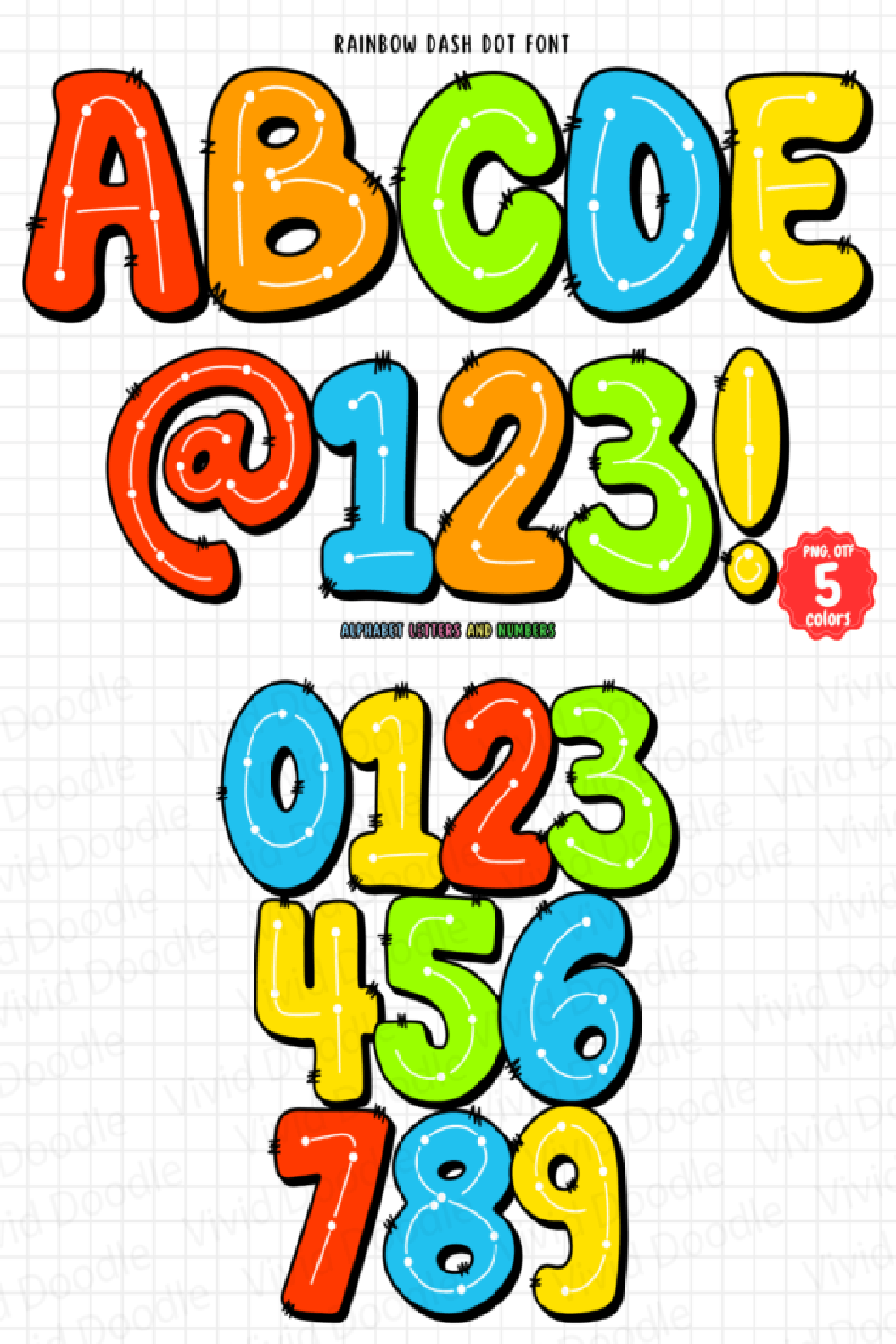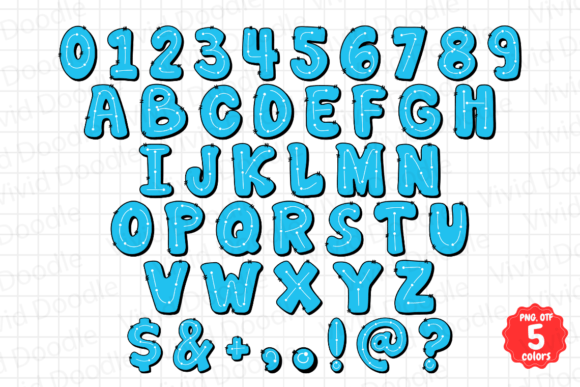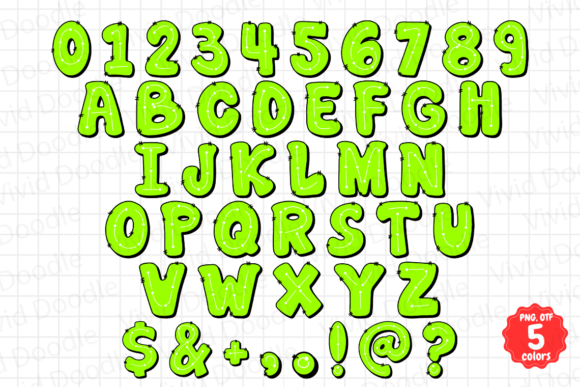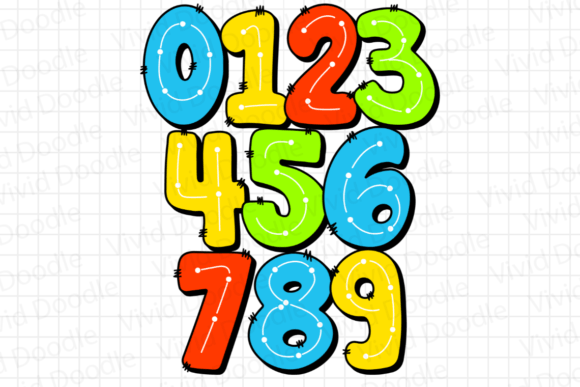
Rainbow Dash Dot Font
About the Rainbow Dash Dot Font
Discover the charm of Rainbow Dash Dot Font. This font is a perfect blend of modern aesthetics and classic appeal. Elevate your designs with the playful and dynamic “Rainbow Dash Dot” font! This lively typeface is perfect for party themes, holidays, school projects, and creative art. With its vibrant colors and dotted style, “Rainbow Dash Dot” adds a fun and energetic touch to any graphic design project. Whether you’re creating invitations for a celebration, designing school posters, or working on creative art pieces, this font brings a burst of color and joy to your work. Make your projects pop with the cheerful and stylish “Rainbow Dash Dot” font, and let your creativity run wild!